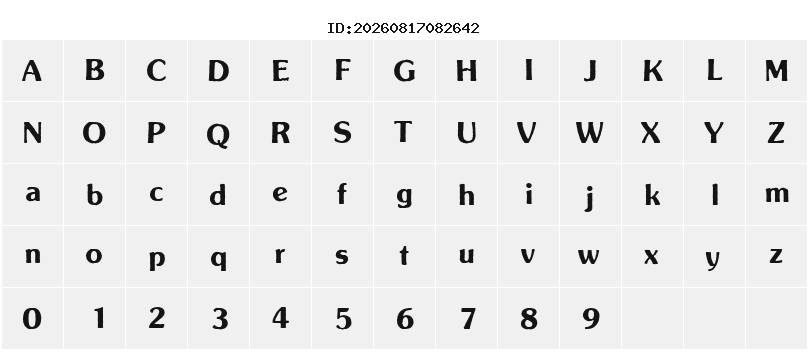
• Font Name: Souvenir Gothic Becker Ant Demi
Souvenir Gothic Becker Ant Demi.ttf is a modern, elegant sans-serif font designed for ultimate readability and visual harmony. Perfect for branding, headlines, web design, and print materials.